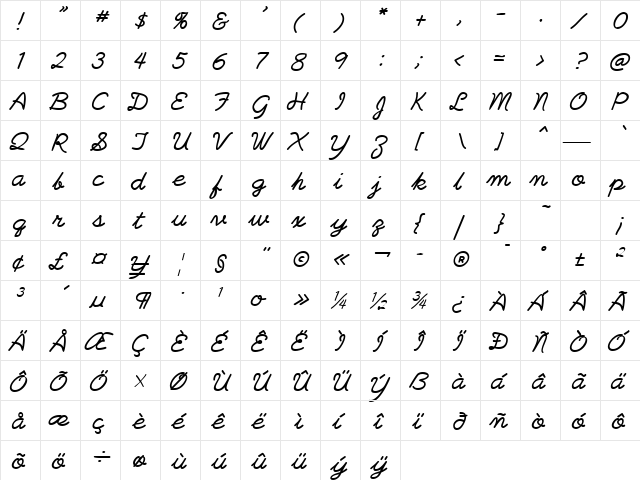
PlainPensle BoldItalic
Design Context for PlainPensle Typeface
PlainPensle is a composed and adaptable typeface that performs quietly and consistently across a wide range of design contexts. The slanted form adds forward momentum and visual energy. The heavy weight commands attention and anchors typographic hierarchies.
Pro Tip: Use PlainPensle for emphasis, pull quotes, and subheadings where its slanted energy can add rhythm to the layout.